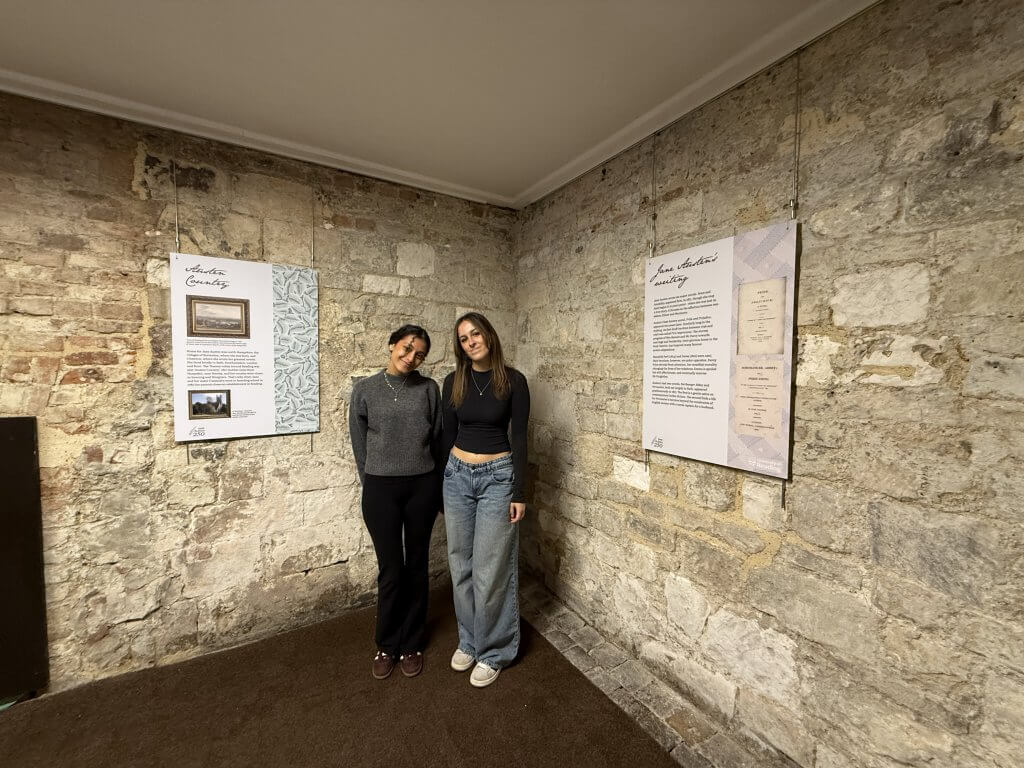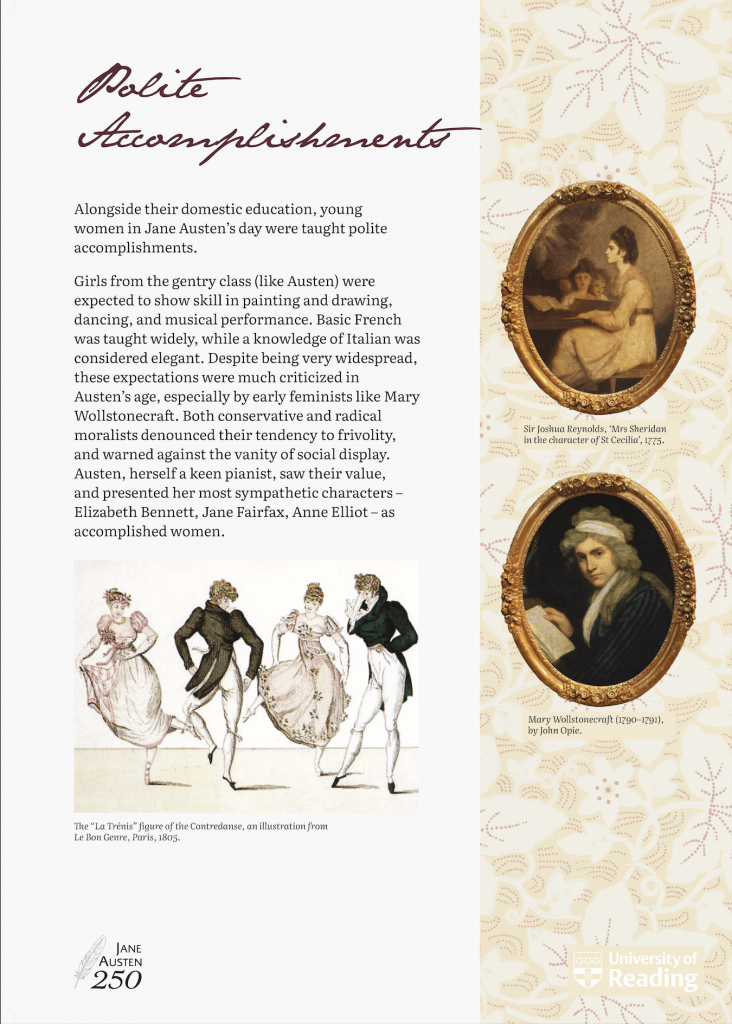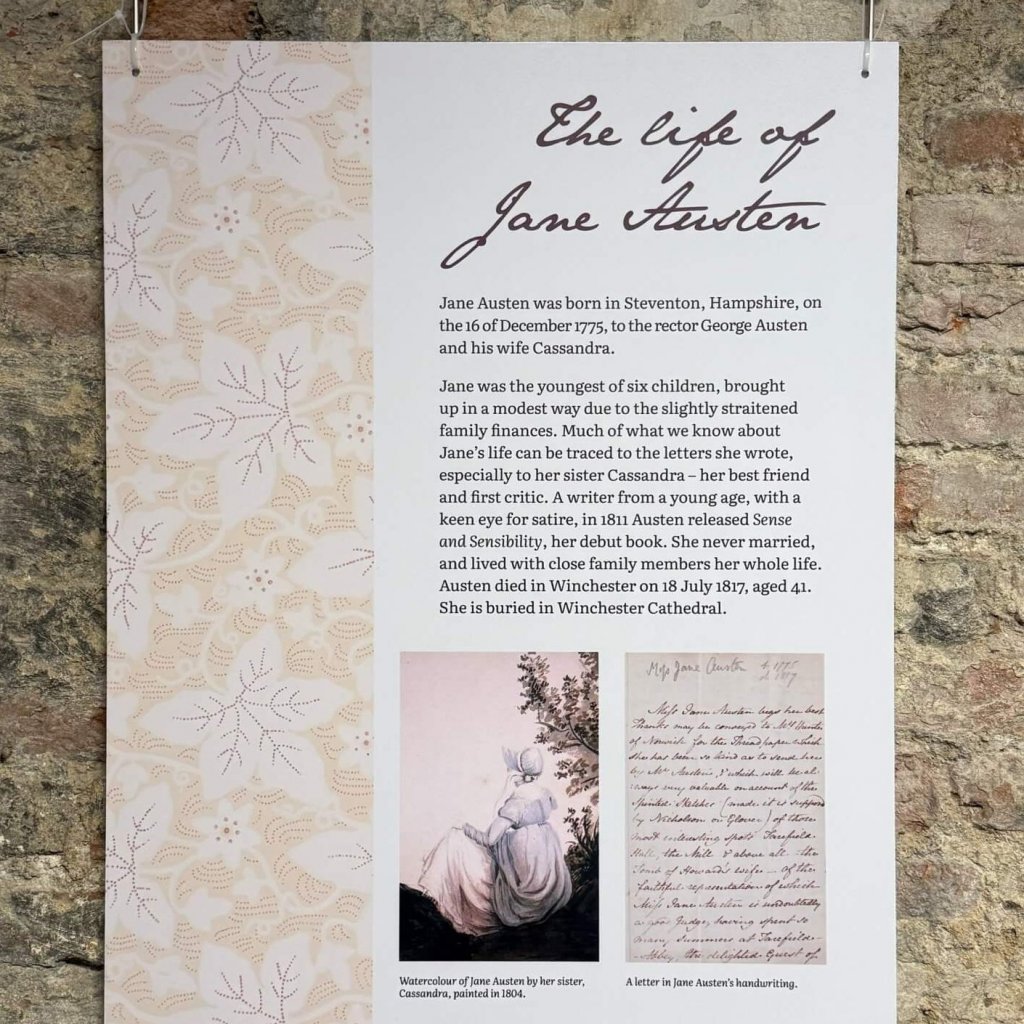
Context
We had the privilege to work alongside the Reading Museum and the English Department to celebrate the 250th anniversary of the birth of Jane Austen. This celebration would consist of six A1 information boards and pull up banners with text provided by the English students. Reading has many connections to Jane Austen and her family, the boards would be displayed at the Abbey Quarter and Abbey Gatehouse where Jane and her sister attended school. These are available to go visit until October 2025 book now on the Reading Museum website.
Restated brief
Aim for the project
For this project we plan to honour Jane Austen’s legacy and provide an educational and visually engaging way for audiences to learn more about her story.
Deliverables
- Outline of Jane Austin’s life
- Her 6 major novels
- Female accomplishments at the start of the nineteenth century
- Early 19th century education
- Austen country (in the Berkshire area)
- The Abbey Gatehouse schoolroom
All these information boards will be reformatted to pull up banners.
Research
In terms of initial research, we visited Jane Austen’s house in Chawton where Jane lived for the last 8 years of her life. This helped us gain an insight to the visual aesthetic of the period. The visit gave us more of an understanding of the architecture during Jane Austen’s life, we were particularly moved by the colourful wallpaper used throughout the house. There were also mannequins showcasing garments and jewellery that would have been worn by Jane and her sister, consisting of delicate silks and embroidered fine muslins. Being able to see real, physical letters written by Jane taught us that typography during this period was mainly handwritten. However, Jane’s handwriting is lively and in a beautifully neat, calligraphic style which we though would be a good addition to the our designs.
Moodboard of images taken at the Chawton house for inspiration.
Development
Before our first client meeting we sketched and created mockups of the information boards incorporating the Chawton House wallpaper to the designs. The clients agreed that adding a part of Jane’s personal life was an effective connection the anniversary of her life. Some feedback we received included making the boards portrait not numbering them as there was no specific sequence for the boards and the education board was going to be placed at her school.
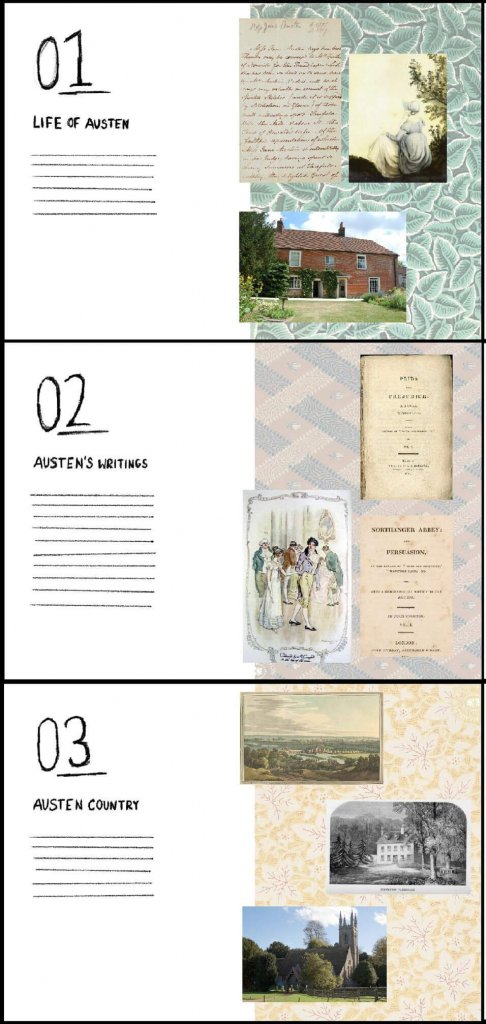
Our initial ideas
Once a rough idea for the layout and design had been agreed on, we started digitising our ideas in InDesign. We split the design work between the two of us, where each one of us was working on three of the information boards. Having weekly feedback with our supervisor Gerry and our Clients was very useful and helped us throughout the development process. Seen below are our first and last iterations of one of the boards after adjusting the design based off of the feedback received.
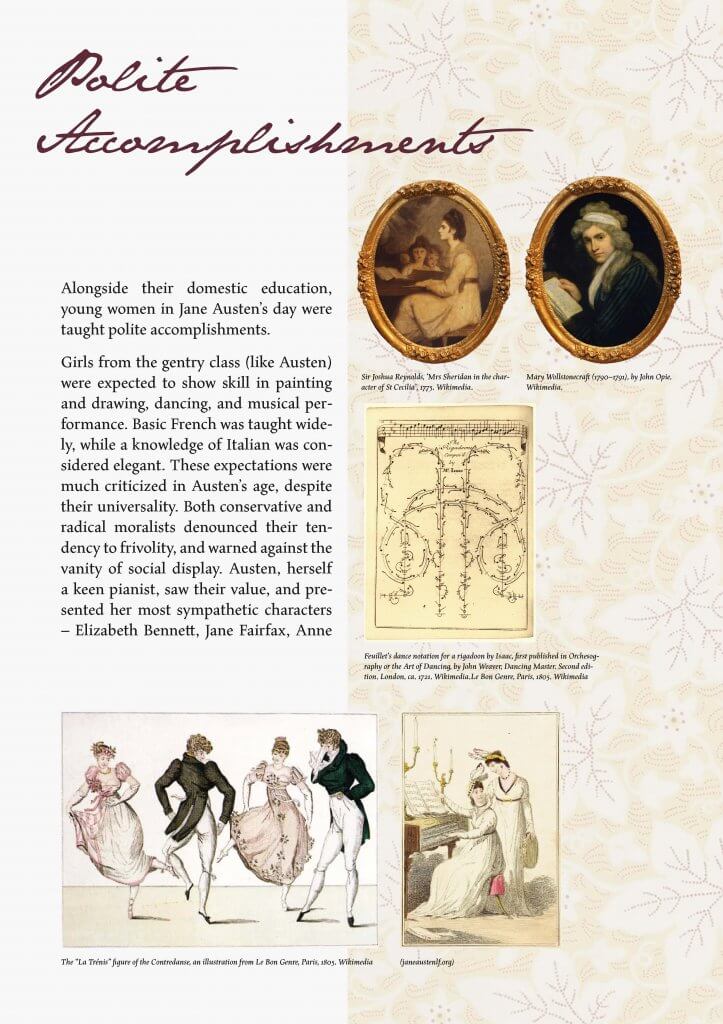
First and final outcome of the board ‘Polite Accomplishments’
Outcome
The outcome of the information boards were produced and installed by the museum itself. As seen below they are hung on a brick wall in Reading Museums Abbey Gatehouse. The typeface of the title incorporates Jane Austen’s handwriting, inspired by the books and letters stored at Chawton House.
This project was a valuable learning experience, and the outcomes were extremely rewarding and a great success for the exhibition in Reading Museum’s Abbey Gatehouse, celebrating the 250th Anniversary of Jane Austen’s life. The information boards capsulate elements from Janes home in Chawton, where she spent her final years, resulting in a more personal and historically accurate outcome.